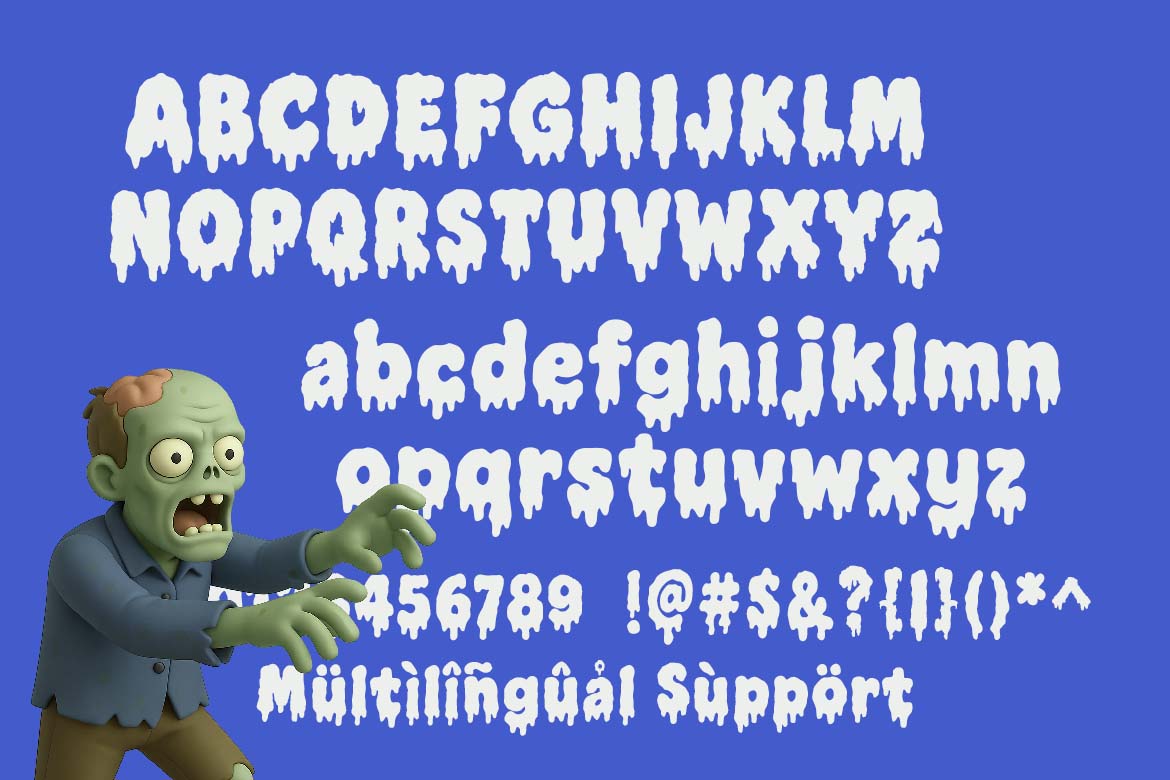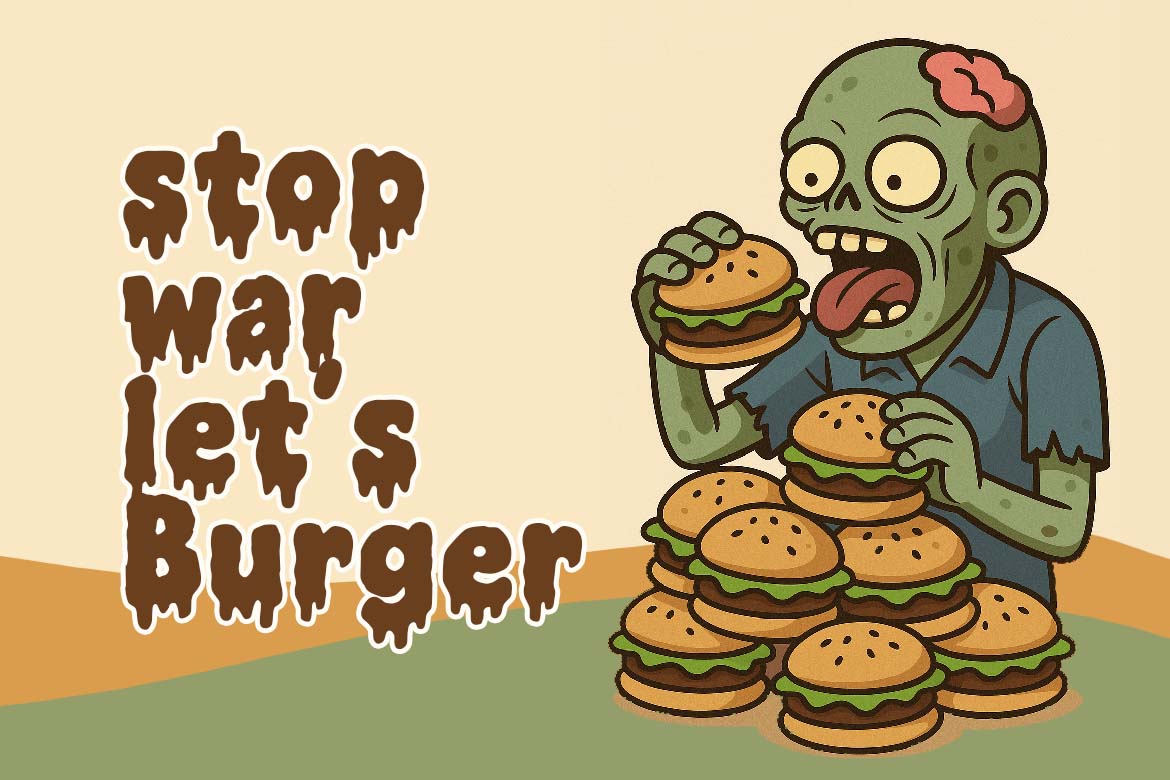
Melting Zombie - Halloween Font
Melting Zombie – A Unique Dripping Font for Halloween Branding & More
Get ready for spooky fun with Melting Zombie, a creepy yet playful display font exclusively from Primefont.com. Designed with melting drips and bold forms, this unique font brings horror and humor together in a perfect blend — ideal for Halloween, food, and product branding.
Each letter looks like it's oozing off the screen, making it a bold choice for eye-catching logos, haunted packaging, and spooky-themed corporate promotions. Whether you're designing snack labels, posters for a horror event, or branding a zombie-themed campaign, Melting Zombie delivers a strong visual punch.
Use Melting Zombie for:
• Creepy food or snack product packaging
• Fun Halloween posters and party invites
• Bold and memorable logo design
• Horror-themed enterprise branding and merchandise
• Creative campaigns that need a monster-sized impact
Melting Zombie stands out with its irregular edges and melting drips, giving your designs a handmade, organic, and dramatic effect. It’s more than a seasonal font — it’s a bold branding tool.